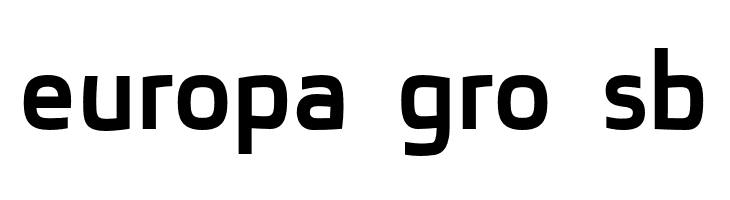
( Fonts by www.chequered.ink - Chequered Ink - Personal-use only. For commercial use please contact owner. ) A bold, angular font with a dynamic and energetic style. Download 98 Downloads@WebFont
( Fonts by Disaster Fonts ) A bold, futuristic font with rounded edges and a blocky structure. Download 109 Downloads@WebFont
( Font by Sven Stuber - www.superlooper.de ) A bold, geometric font with sharp angles and a futuristic style. Download 90 Downloads@WebFont
( Font by Sven Stuber - www.superlooper.de ) A futuristic, angular font with sharp edges and geometric shapes. Download 82 Downloads@WebFont
( Font by Sven Stuber - www.superlooper.de ) A thin, angular, and geometric font with a futuristic and technical style. Download 116 Downloads@WebFont